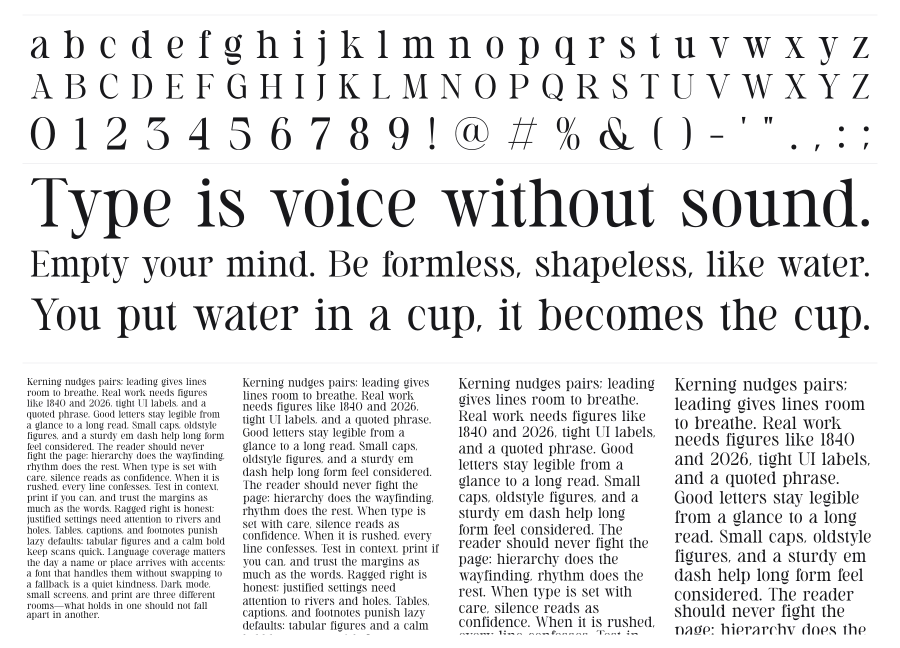
Cargen
Cargen is a high-contrast modern serif drawing from the Didone tradition, with dramatic hairline-to-stem contrast and refined proportions. The generous x-height and subtle ball terminals keep it approachable while the overall architecture reads as distinctly elevated. It gravitates naturally toward fashion, luxury branding, and editorial headlines.